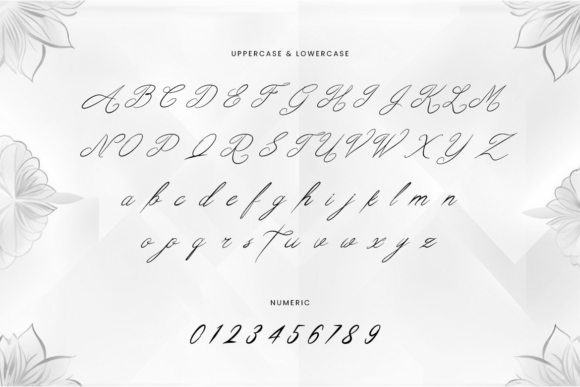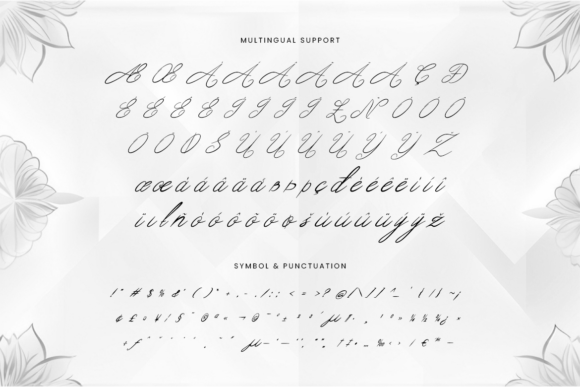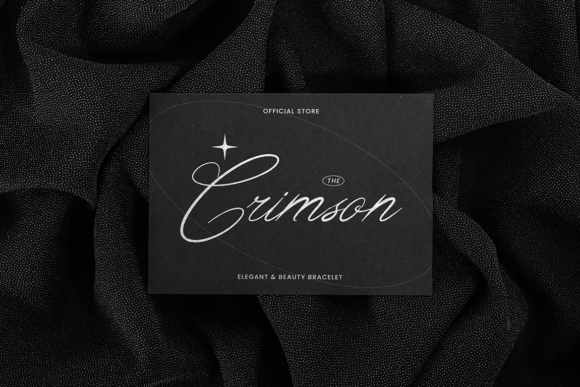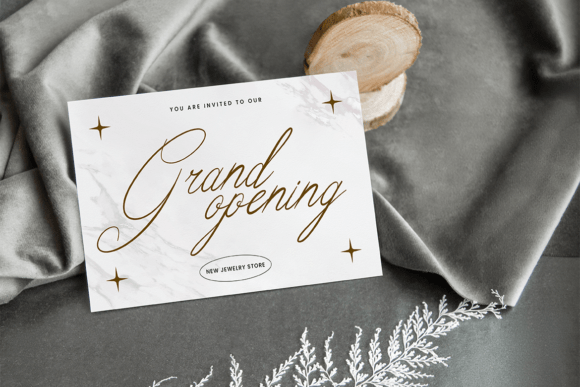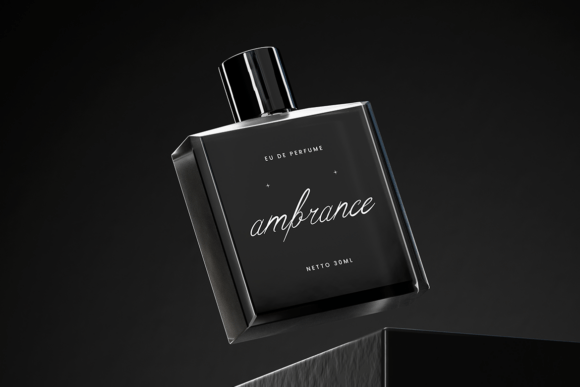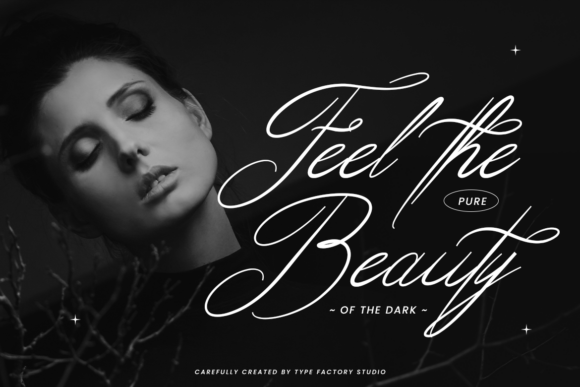
Introduction to Setiany Font
Setiany is an elegant signature script typeface designed with smooth flowing strokes and refined handwritten curves.
The letterforms feature natural calligraphy movement that creates a graceful and expressive typographic style Its delicate structure and fluid connections make Setiany suitable for stylish display typography.
Key Features of Setiany Font
Why Choose Setiany Font?